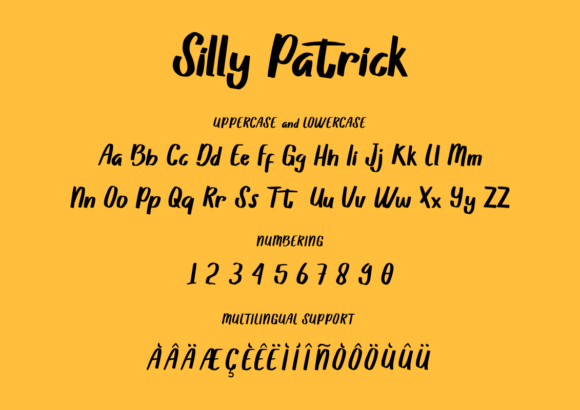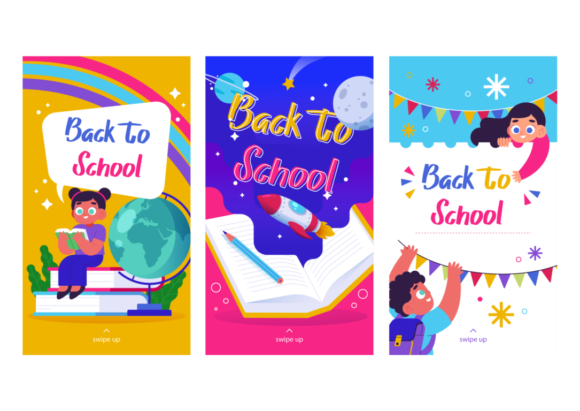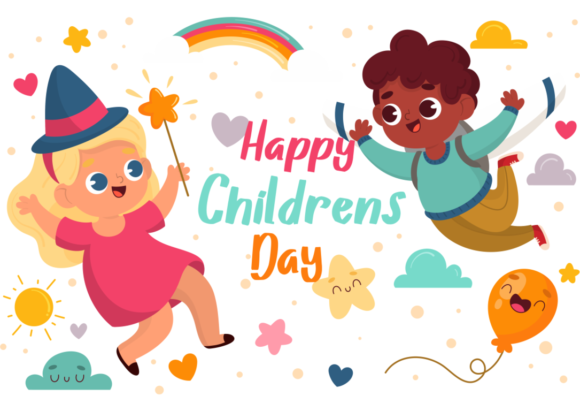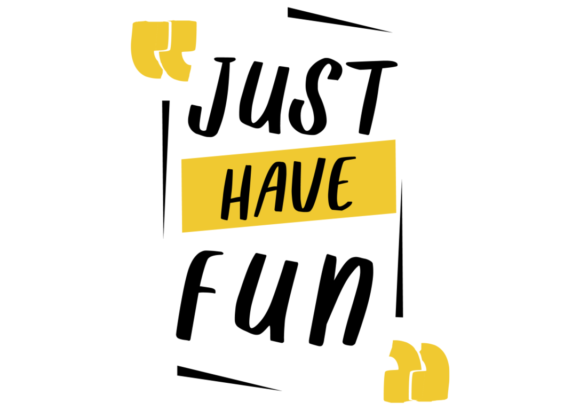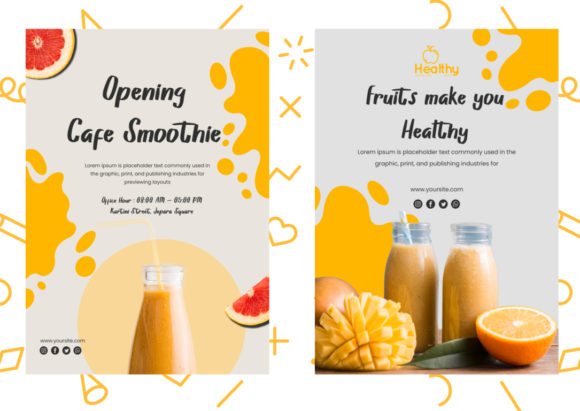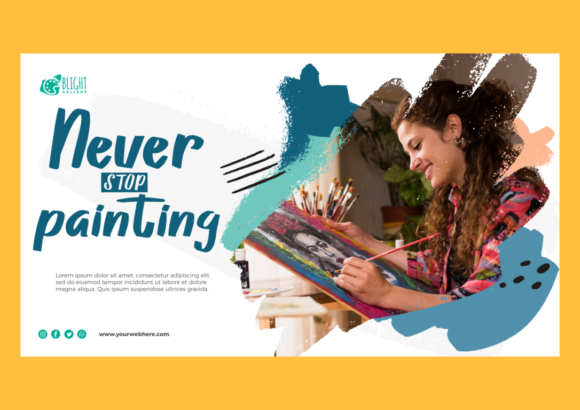
Introduction to Silly Patrick Font
Have you ever found yourself stuck in the middle of a creative project, desperately searching for that perfect design element to bring your vision to life? I know I have. It’s those moments when the right font can make all the difference. I recall a particularly frustrating afternoon spent designing a social media campaign, and all it needed was a dash of personality – that’s when I stumbled upon the Silly Patrick Font.
This delightful handwritten font is an absolute game-changer for designers, offering a unique blend of playfulness and sophistication that can elevate any project. Whether you’re working on a free download or a high-end commercial campaign, Silly Patrick Font is an indispensable design resource that’s sure to make your creations stand out.
With its transparent background and crisp, high-quality design, Silly Patrick Font is an incredibly valuable addition to any designer’s library. Trust me, once you get your hands on this amazing font, you’ll wonder how you ever managed without it!
Key Features of Silly Patrick Font
- Unique and playful design, perfect for creative projects and adding a touch of whimsy.
- Includes a range of character sets, including uppercase and lowercase letters, numbers, and special characters.
Honest Review: Silly Patrick Font
I recently stumbled upon the Silly Patrick Font while searching for a design resource to elevate my creative project. I’m excited to share my honest review with you.
What works well: ✨ The Silly Patrick Font is a high-quality font that’s perfect for adding a playful touch to your designs. Its transparent background makes it easy to use on various backgrounds, ensuring that your creative project stands out. I appreciate the fact that it’s a free download, making it accessible to designers of all levels.
- Perfect for adding a playful touch to your designs
Limitations: ⚠️ While the Silly Patrick Font is a great design resource, it’s not ideal for formal or professional projects. Its playful nature might not be suitable for all audiences, so be sure to consider your target market before using it.
Overall impression: I’m impressed with the Silly Patrick Font’s potential to elevate creative projects. Its high-quality design and transparent background make it a valuable design resource. Just be mindful of its limitations, and you’ll be all set to create amazing designs.
Tips for Getting the Most Out of Silly Patrick Font
For the best results, use Silly Patrick Font with a transparent background to ensure your designs stand out. Experiment with different font sizes and styles to add visual interest to your creative projects.
Silly Patrick Font is perfect for creative projects that require a fun and playful touch, such as children’s book illustrations, party invitations, or social media graphics. Its high-quality design and transparent background make it a valuable design resource for any creative project.